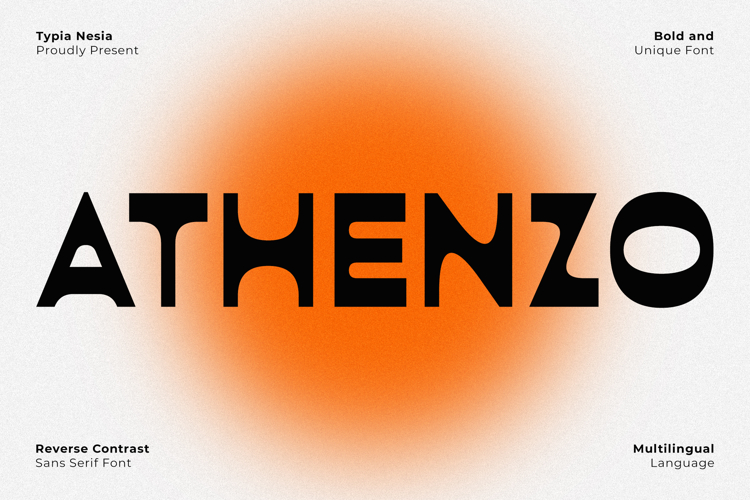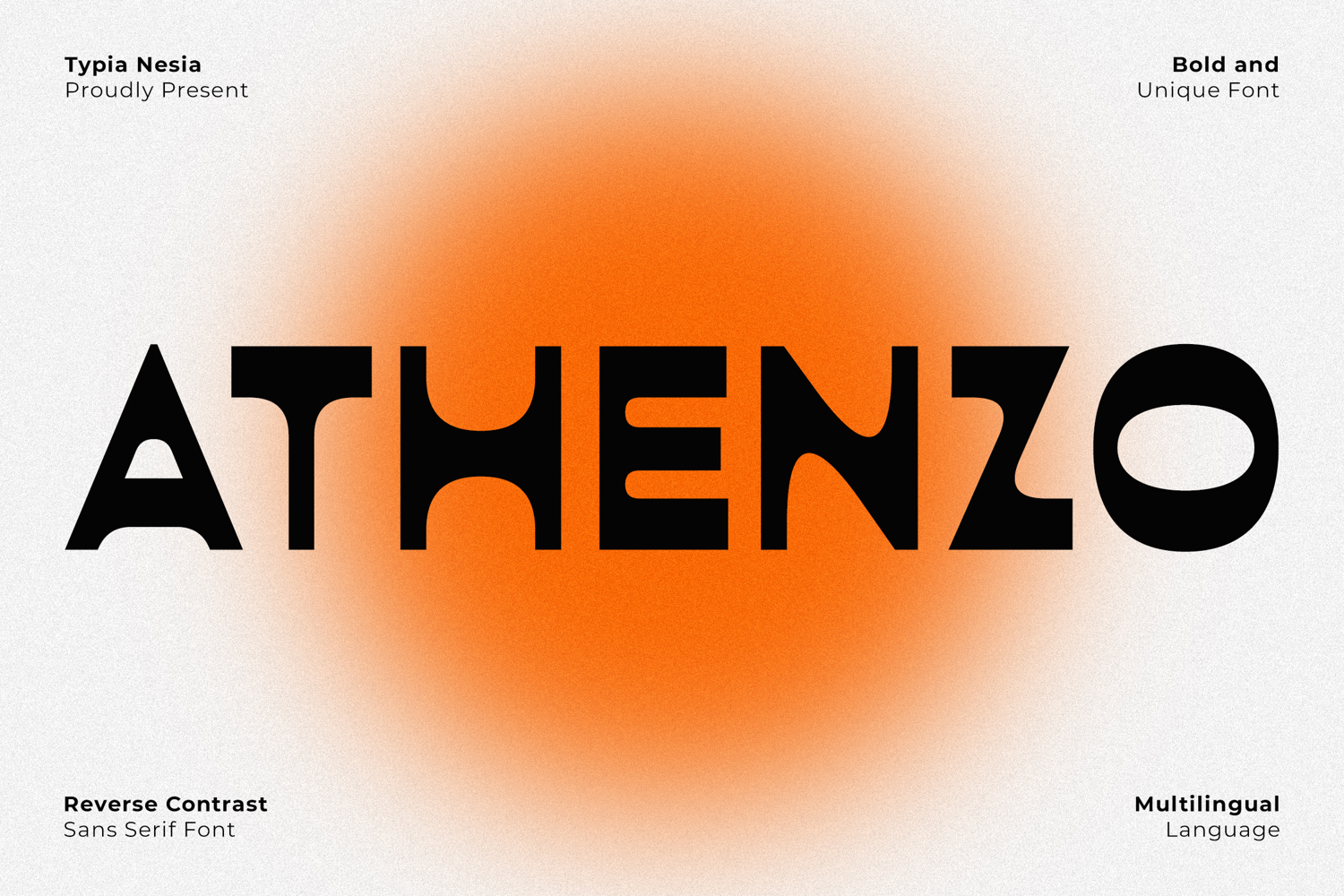
Athenzo - Sleek Modern Reverse Contrast Logo Sans
Athenzo - Sleek Modern Reverse Contrast Logo Sans - Retro Vintage Display Font
Athenzo is a Modern Sans Serif Font that stands out with its signature Reverse Contrast style and Retro aesthetic, this Modern typeface is Sleek and Minimal, built for impactful display use, and is the perfect choice for a distinctive Logo, Wordmark, or Logotype across Web and print design, This font also excels in various branding applications, especially in the Food and beverage industry, being an excellent fit for Cafe, Coffee, Bakery branding, Posters, Advertising campaigns, Packaging designs and any projects that require a modern, sleek and touch retro charm. Comes with a full character set of uppercase, lowercase, and numerals, as well as ligatures and essential alternates. Furthermore, it offers extensive Multilingual Support, enabling your Branding to reach a global audience with a cohesive and Creative voice.